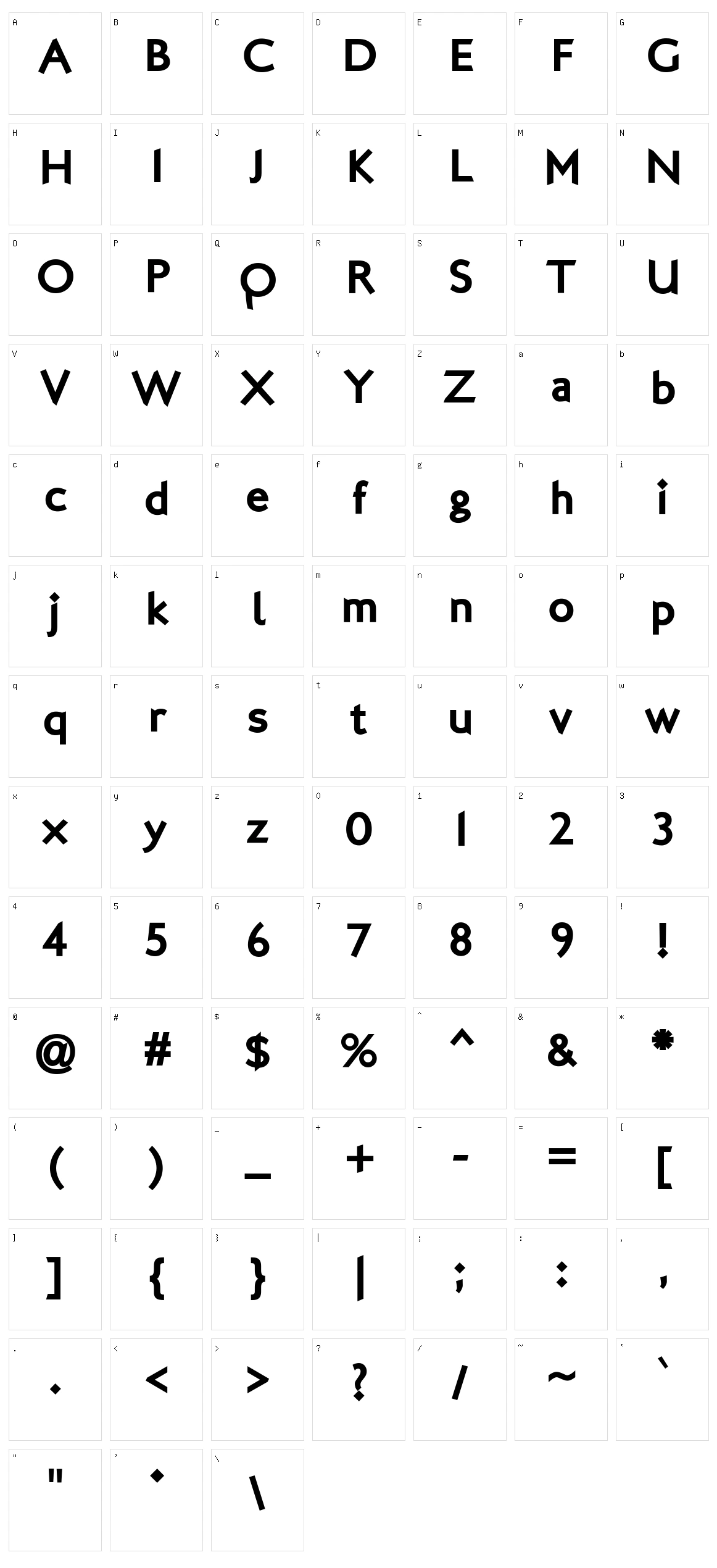
LondonMM tries to be both humanistic and geometrical, and probably fails in both. It should be usable, though, at least if I was better at fine-tuning the kernings...